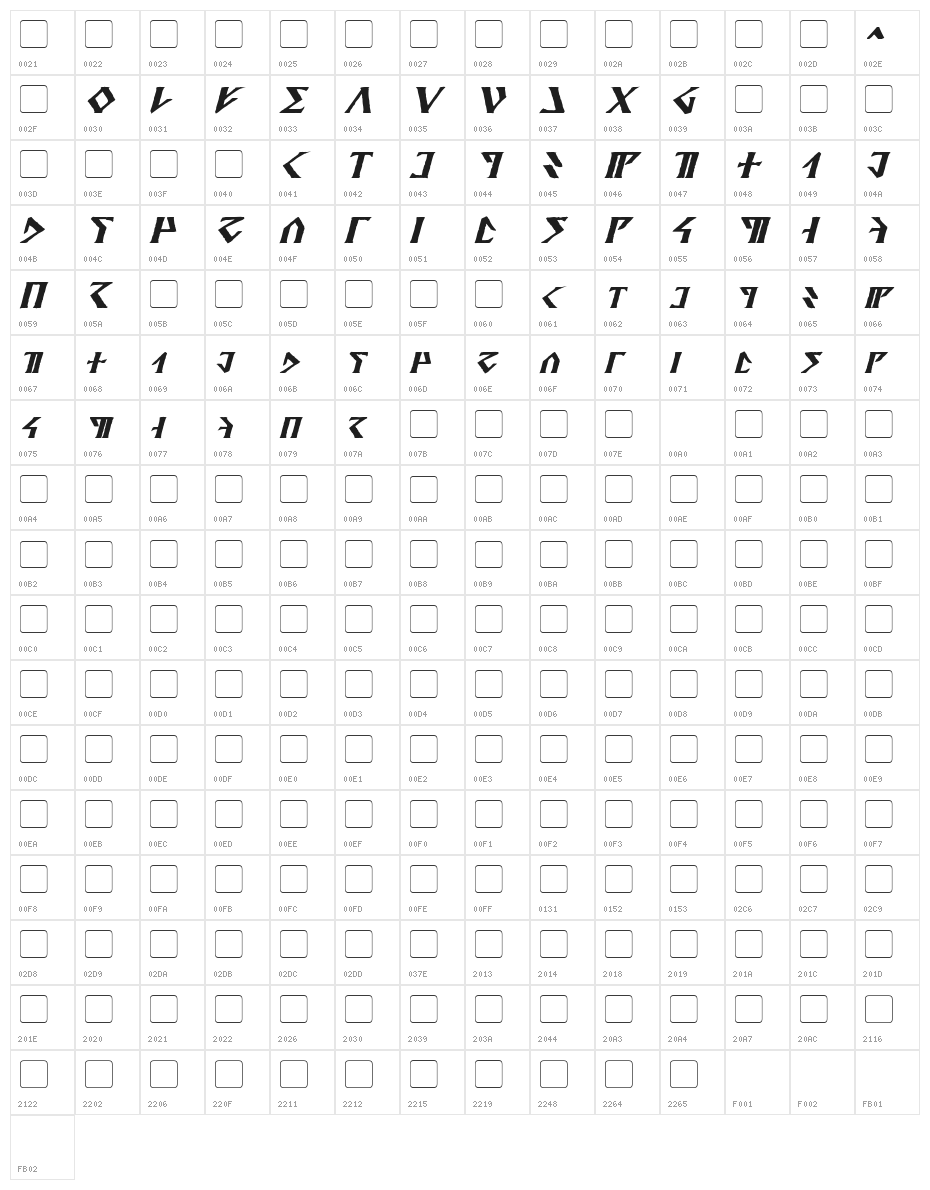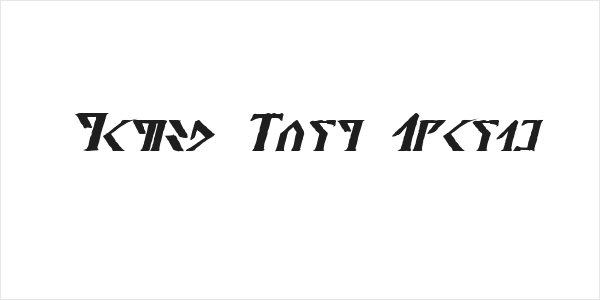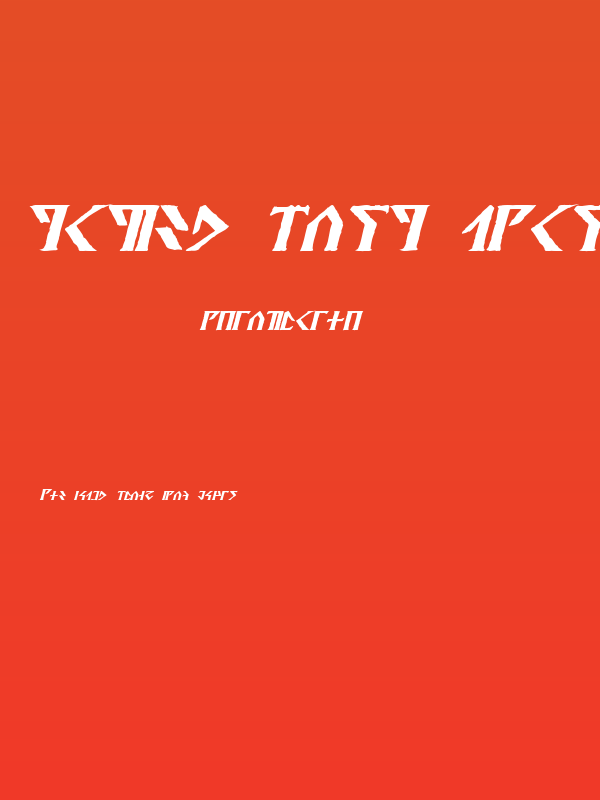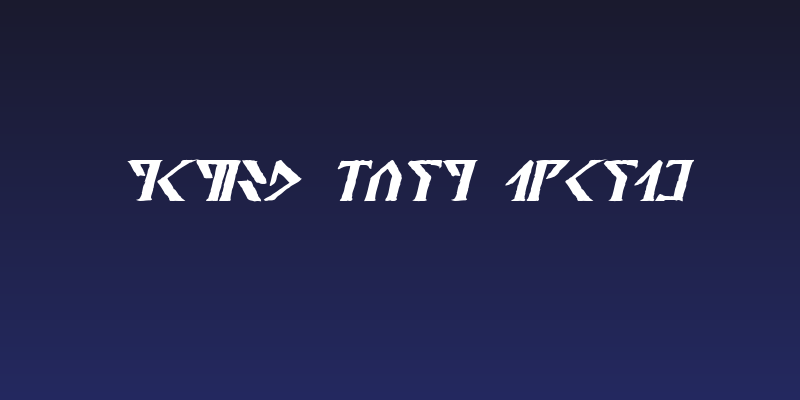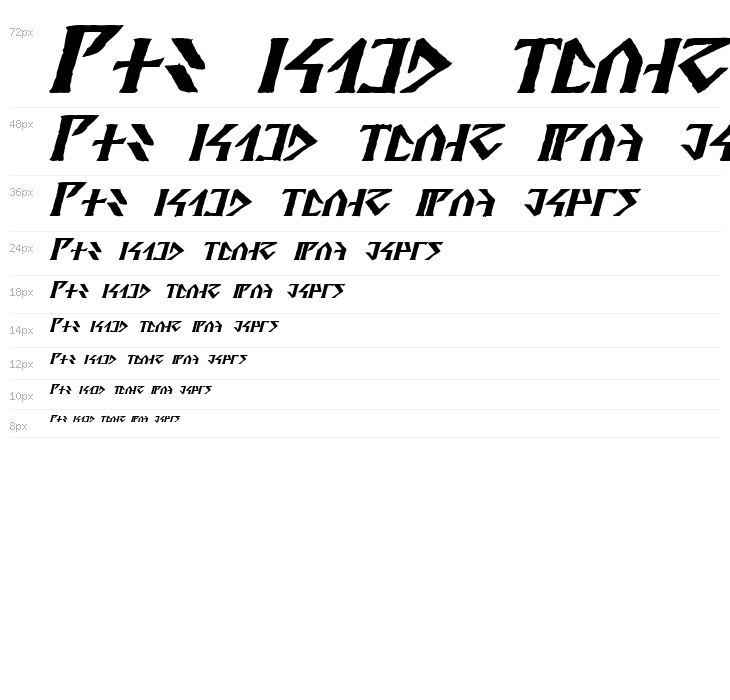
Davek Bold Italic Font
Davek Bold Italic Description
This font features a bold and italicized style with sharp, angular edges and a futuristic appearance. The characters are heavily stylized, with a distinct slant that adds dynamism and movement. The strokes are thick and consistent, providing a strong visual impact. The design is reminiscent of sci-fi themes, with a modern and edgy look that stands out. The uppercase and lowercase letters maintain a cohesive style, while the numbers and special characters are equally bold and striking. This font is ideal for projects that require a bold statement and a modern aesthetic.